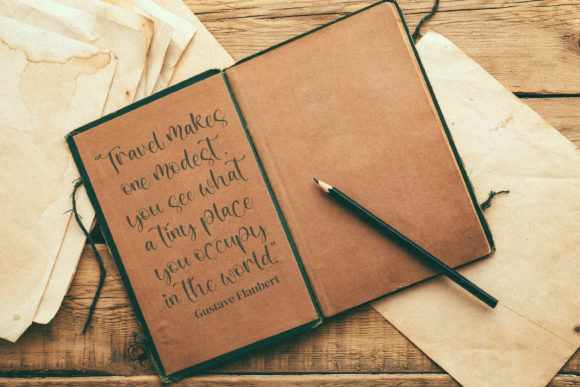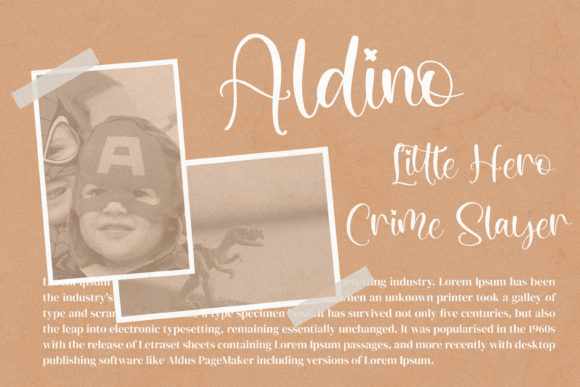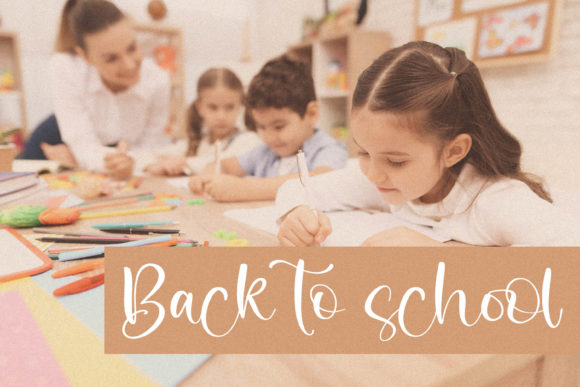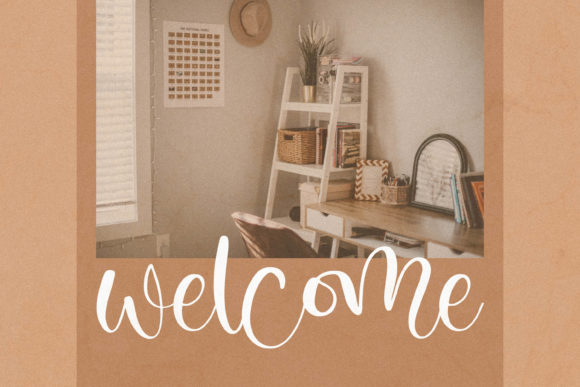
About Jasuke Sweet Font
Jasuke Sweet is a thin lettered and delicate handwritten font. Dainty and joyful, this font will be ideal for writing wedding invitations, cards or any other design that may need a romantic, personalized touch!